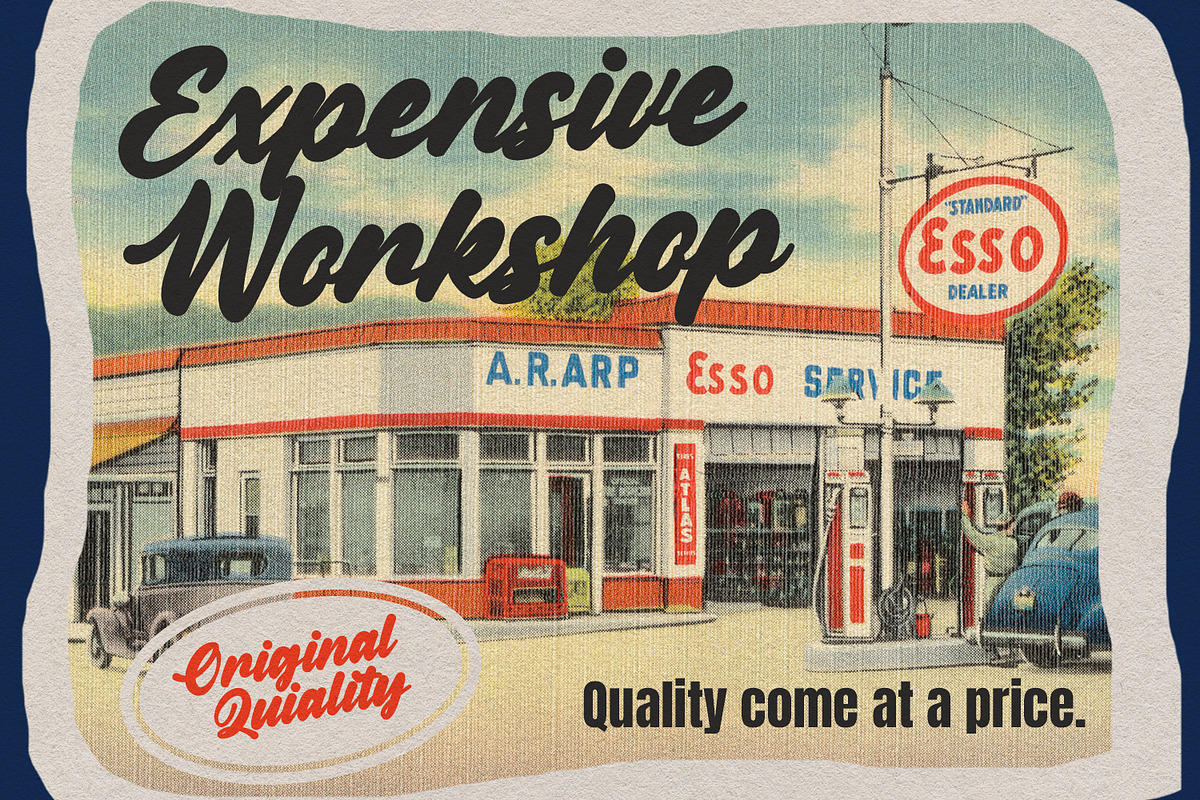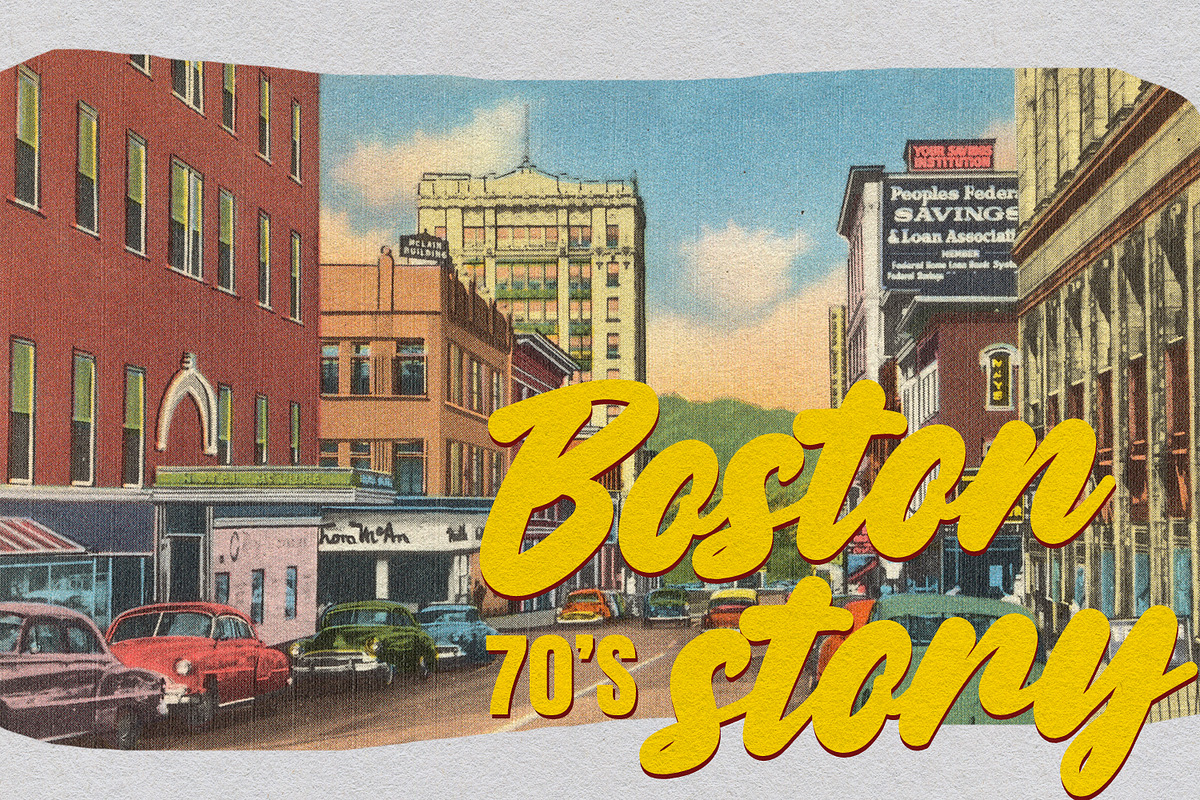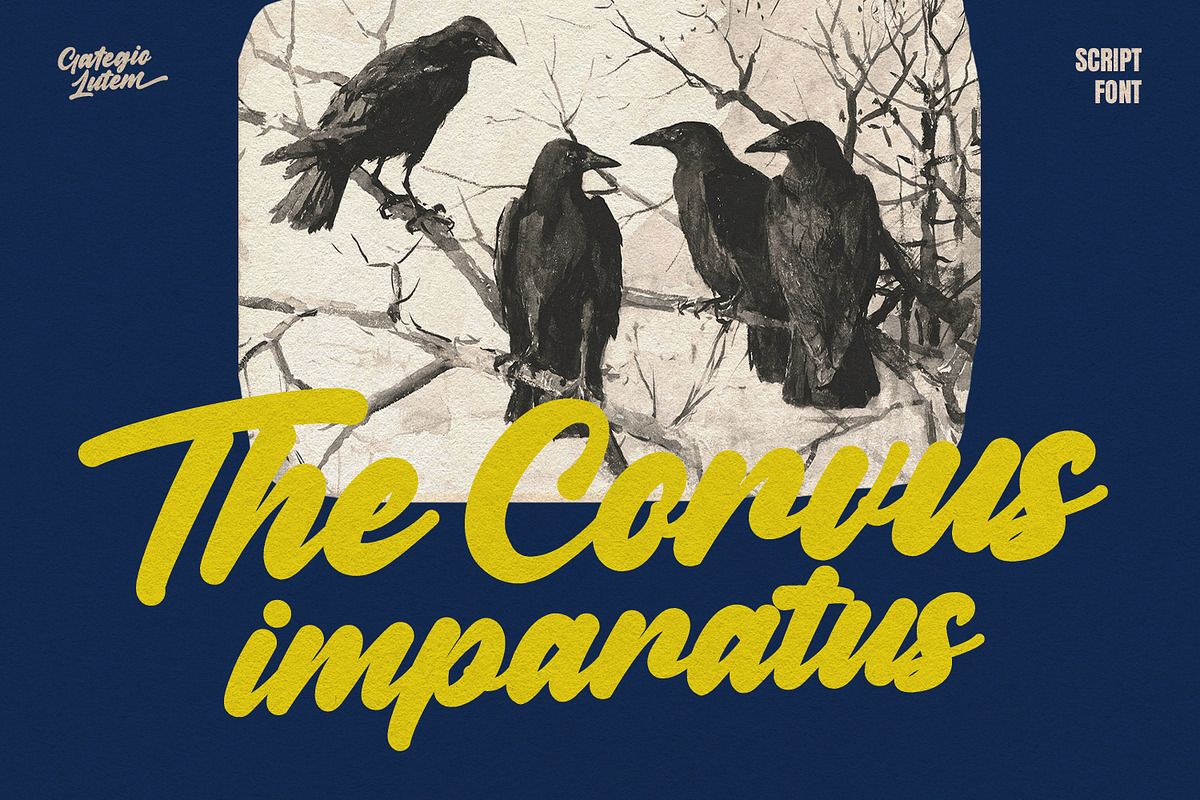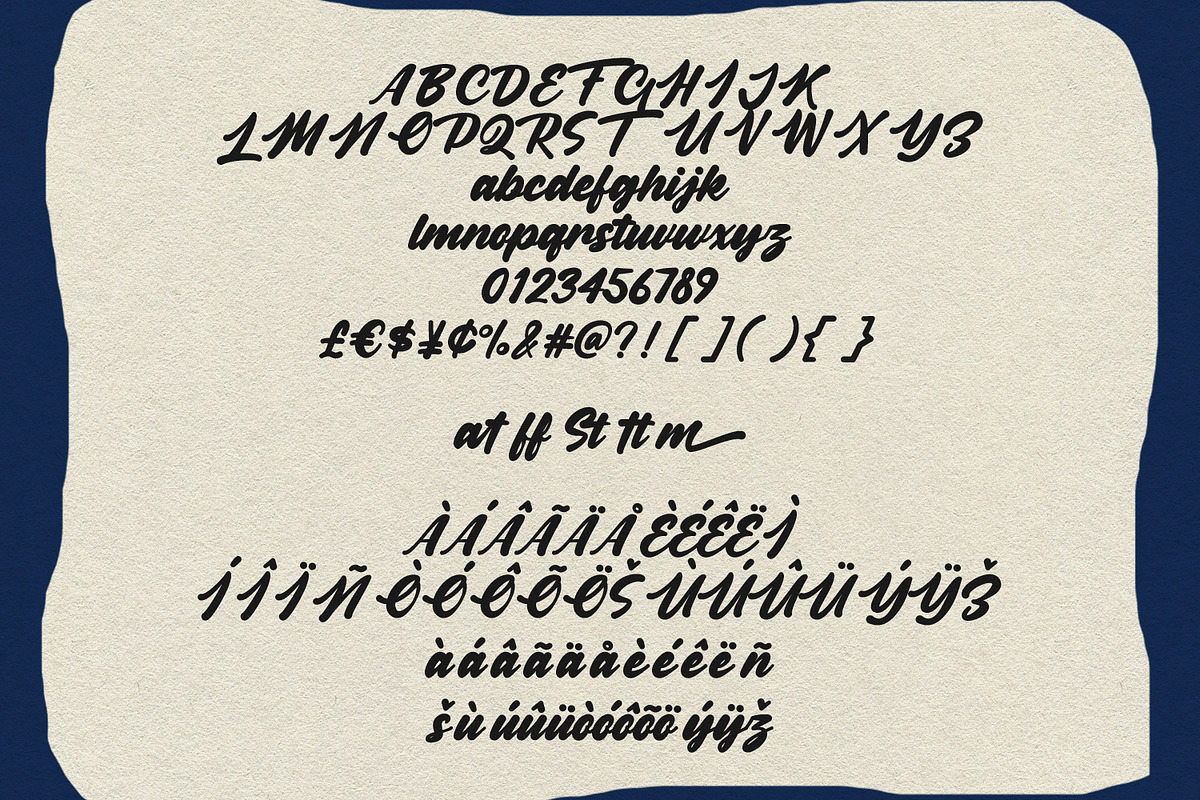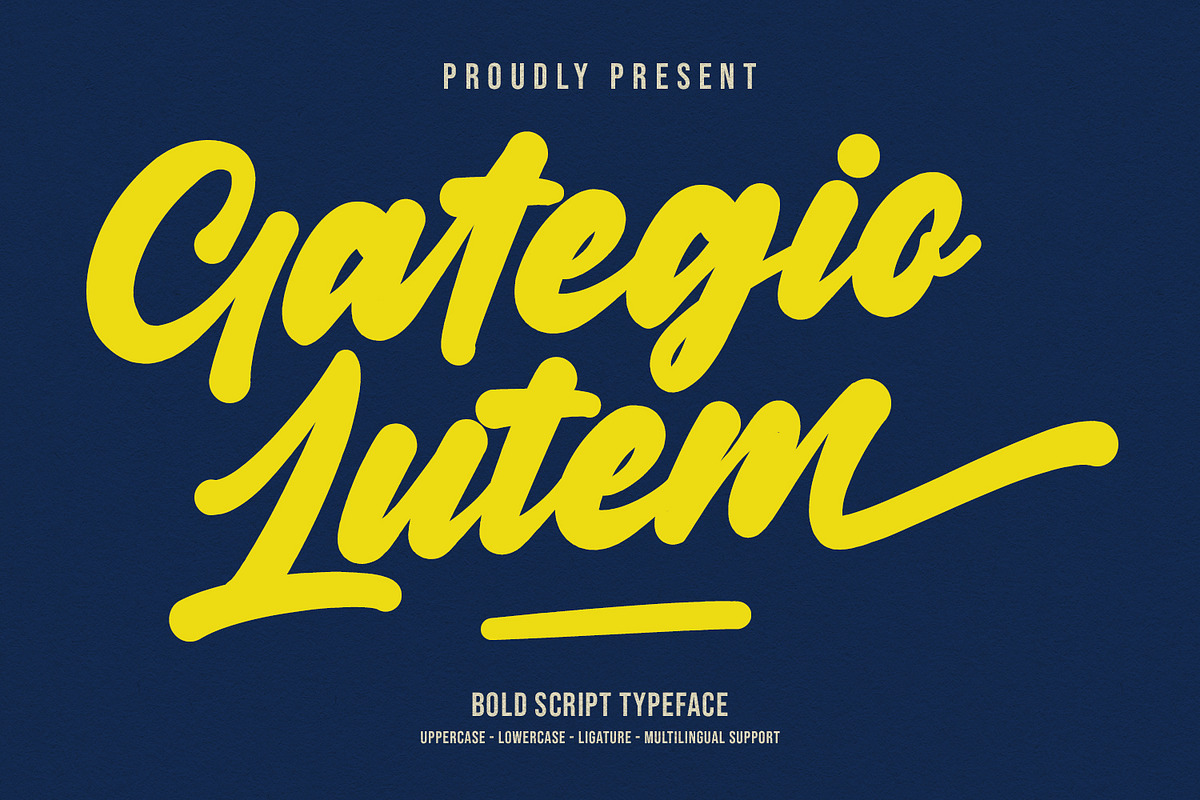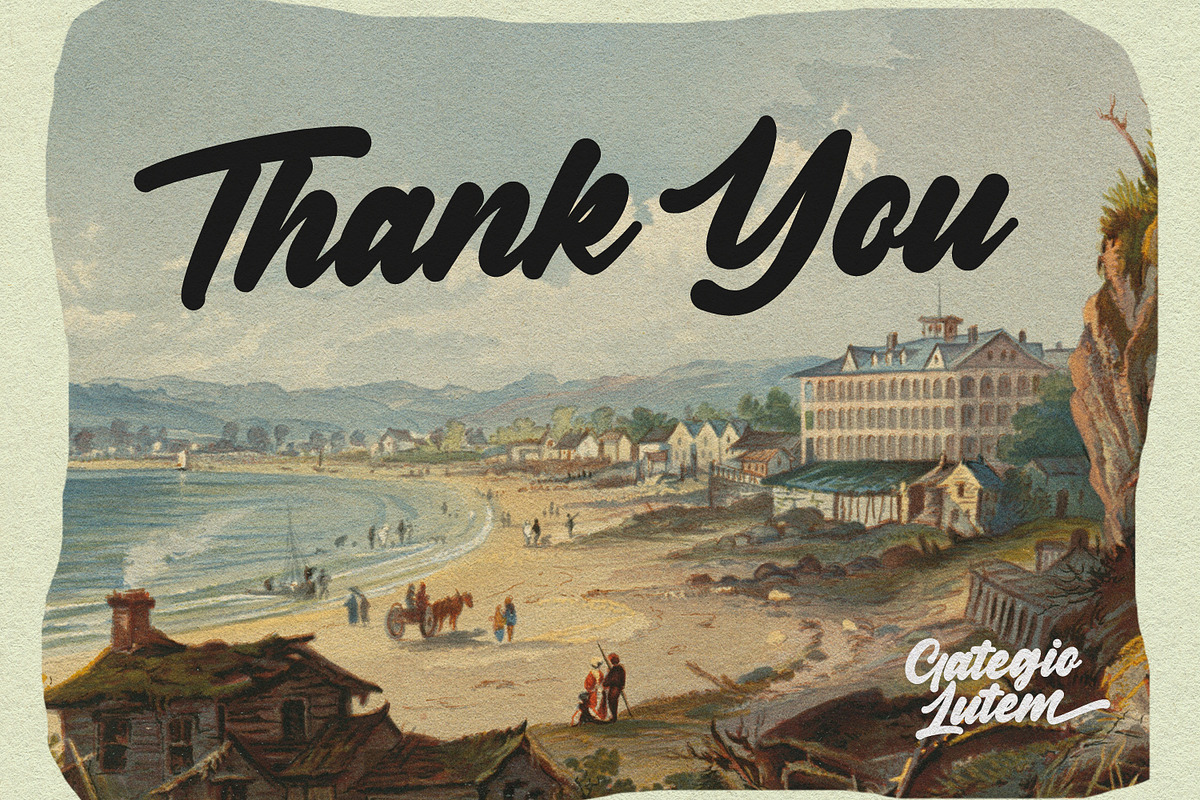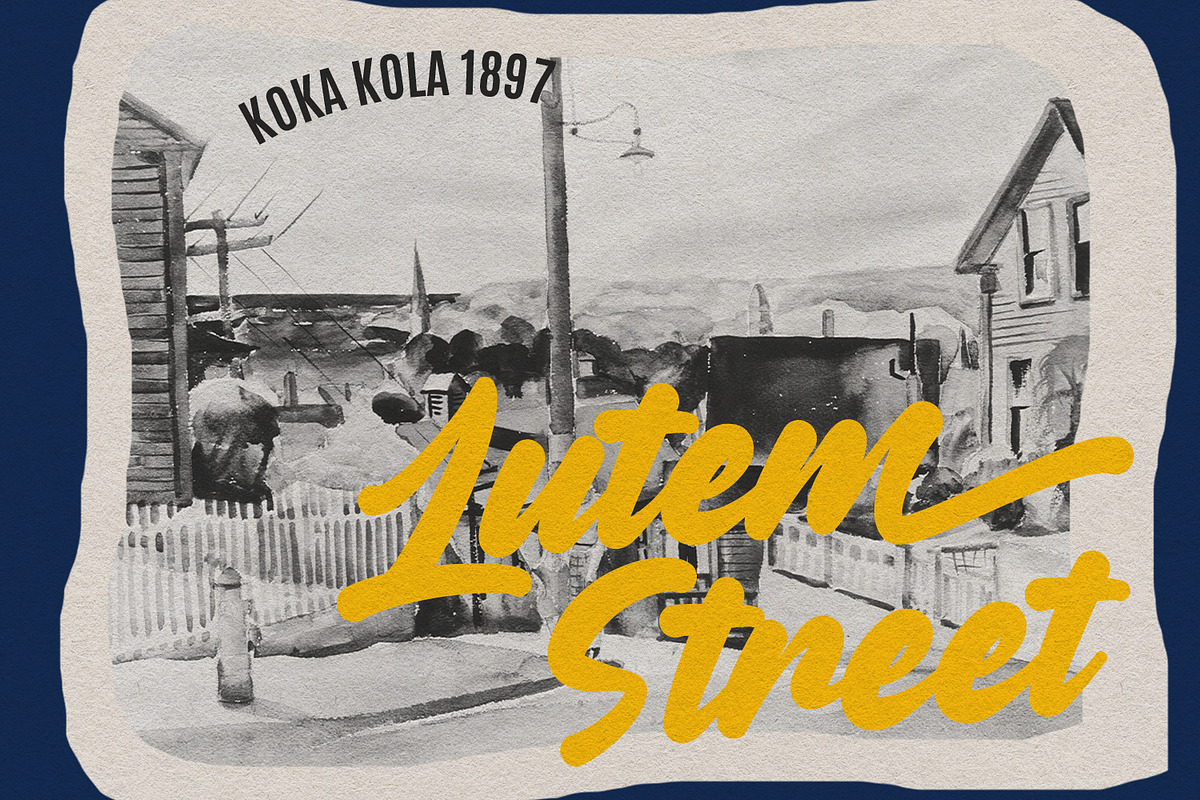
Gategio Lutem Script Handmade Bold
Gategio Lutem script handmade brush bold display font, fun character with alternate and ligatures. To give you an extra creative work. Gategio Lutem handmade brush display font support multilingual language.